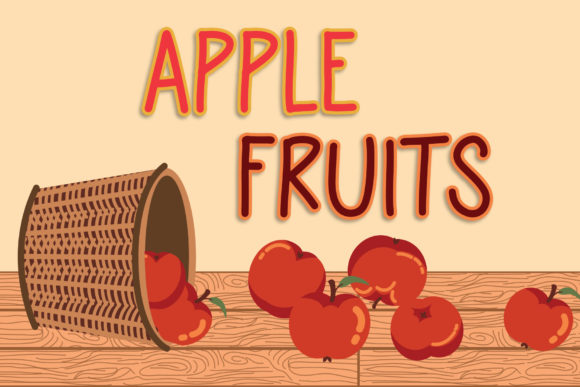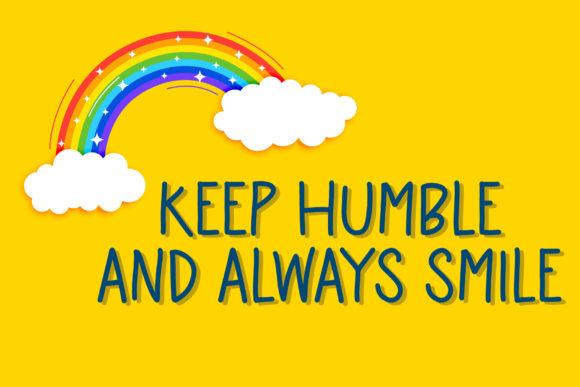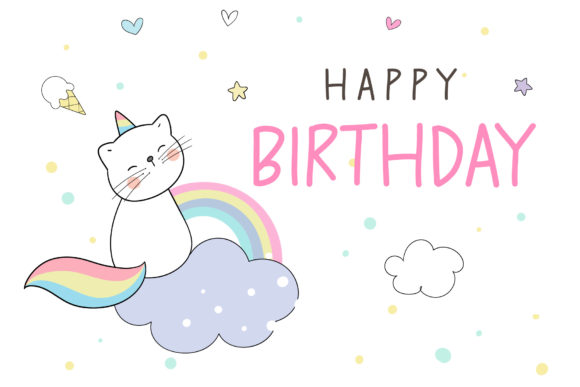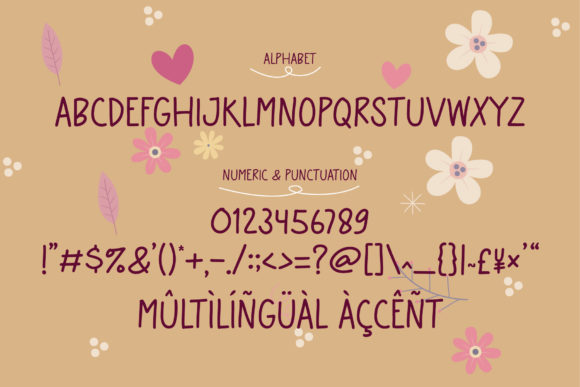
The Dreamy Font That Brings Imagination to Life: A Deep Dive into Four Dream
I’ll never forget the moment I stumbled upon the perfect font for a project. I was working late, surrounded by design boards and empty coffee cups, trying to find the right fit for a client’s branding. The brief was simple: elegant, yet approachable; professional, yet playful. And then, I saw it – Four Dream. A simple and neat lettered handwritten font that seemed to tick all the boxes. Its natural and unique style made it incredibly fitting to a large pool of designs. The only limit, as the saying goes, was my imagination!
An Honest Review of Four Dream
- ✨ Simple and neat lettered handwritten style that’s easy on the eyes
- ✅ Highly versatile and adaptable to various design projects
- 🌈 Unique and natural feel that adds a touch of personality to any design
While Four Dream is an excellent font, it’s not without its quirks. For instance:
- 🤔 Some users might find the font a tad too simplistic for certain projects
- ⚠️ It may not be the best fit for very long-form content, such as novels or lengthy articles
The Story Behind Four Dream
While the origins of Four Dream are shrouded in mystery, it’s easy to imagine a designer sitting at their desk, pen in hand, crafting each letter with care and attention to detail. Perhaps they were inspired by the beauty of handwritten notes, the elegance of calligraphy, or the playfulness of street art. Whatever the story, Four Dream has become a beloved font among designers and creatives.
Q: What makes Four Dream so versatile?
A: Four Dream’s unique blend of simplicity and elegance makes it suitable for a wide range of design projects, from branding and marketing to crafting and DIY.
Q: Is Four Dream a difficult font to pair with other fonts?
A: Not at all! Four Dream’s neutral style makes it easy to pair with a variety of fonts. Experiment with different combinations to find the perfect fit for your design.